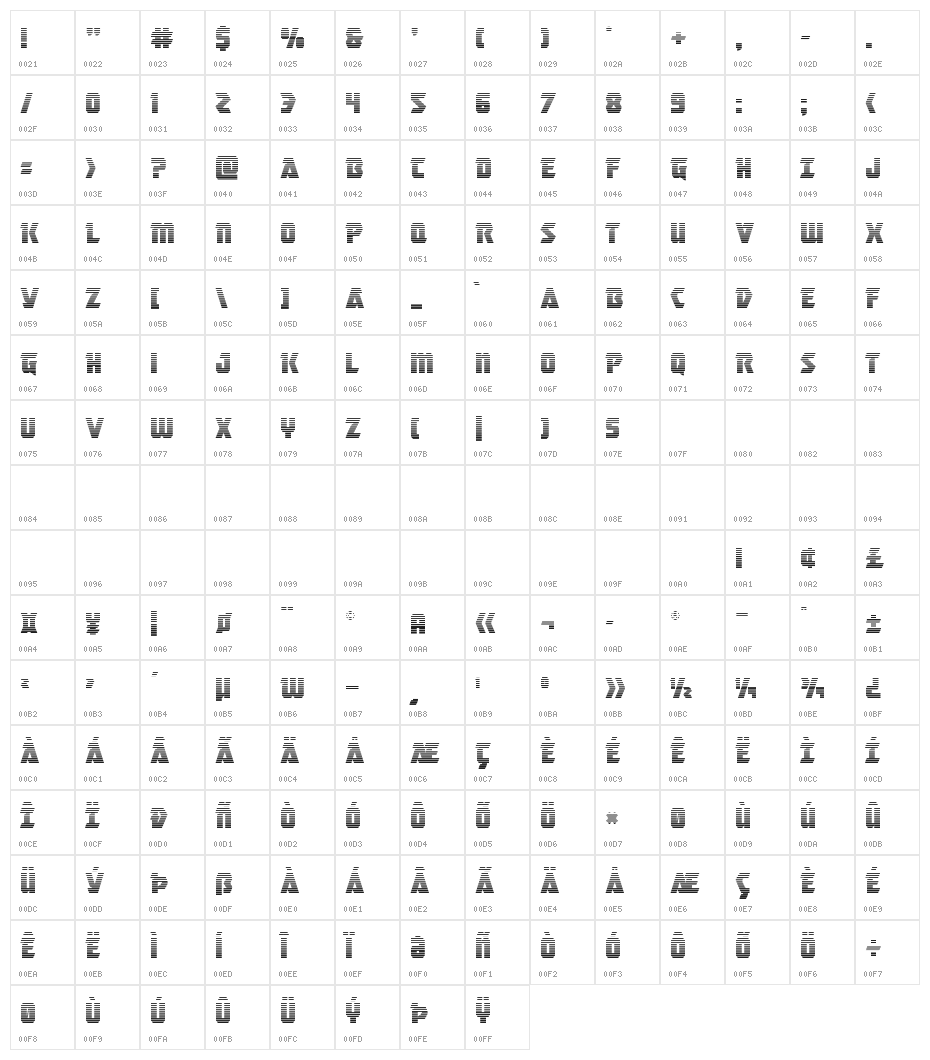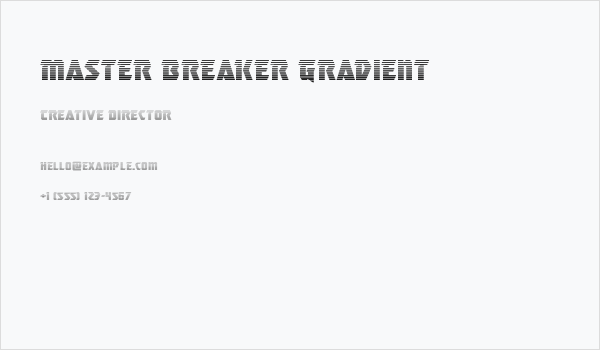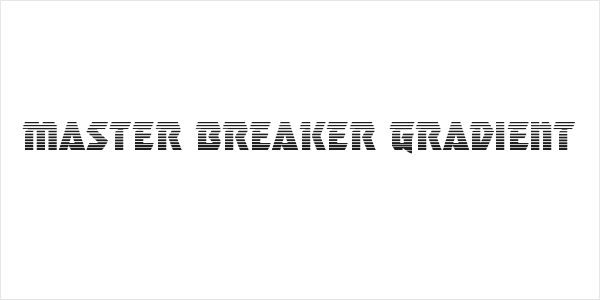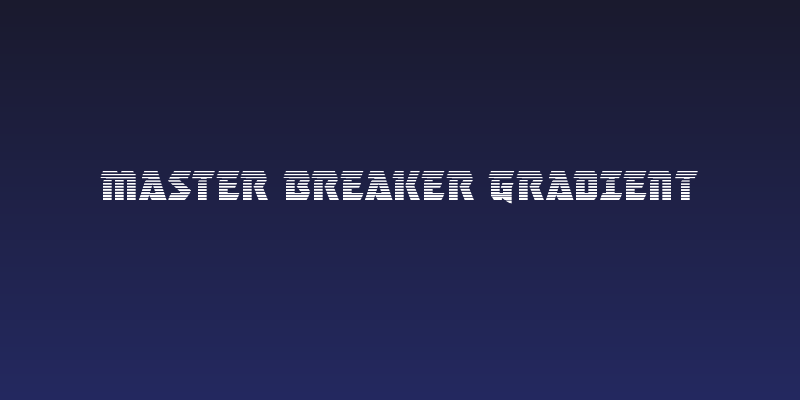
Master Breaker Gradient Font
Master Breaker Gradient Description
This font features a bold, geometric design with a distinctive striped pattern running horizontally through each character. The uppercase letters are angular and robust, creating a sense of movement and energy. The lowercase letters maintain the same boldness, ensuring consistency across the typeface. Numbers and special characters are equally dynamic, making them stand out. The font's unique style is reminiscent of futuristic or industrial themes, making it ideal for projects that require a strong visual impact.
MASTER-BREAKER-GRADIENT UPPERCASE
MASTER-BREAKER-GRADIENT LOWERCASE
MASTER-BREAKER-GRADIENT OTHER CHARS
| Overall Style | Futuristic, Industrial |
| Proposed Projects | This font is perfect for branding, posters, video game titles, and any project that requires a modern, industrial aesthetic. |